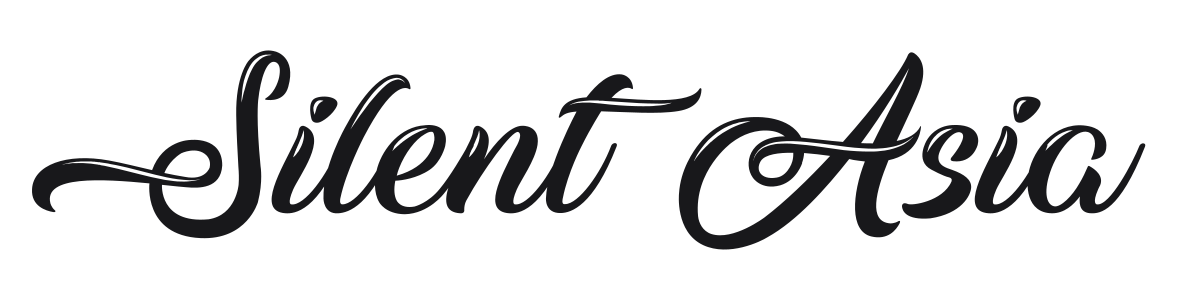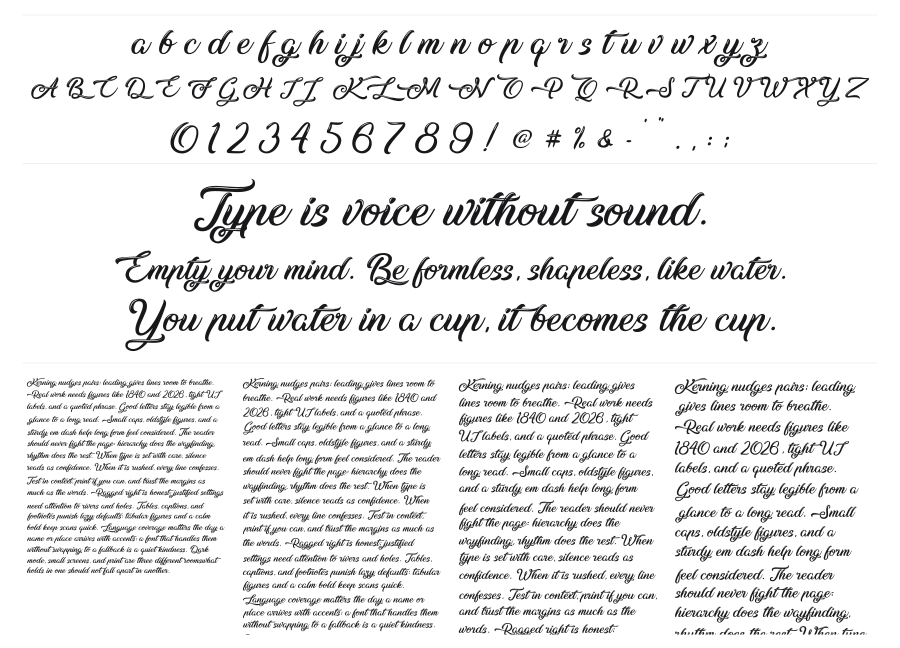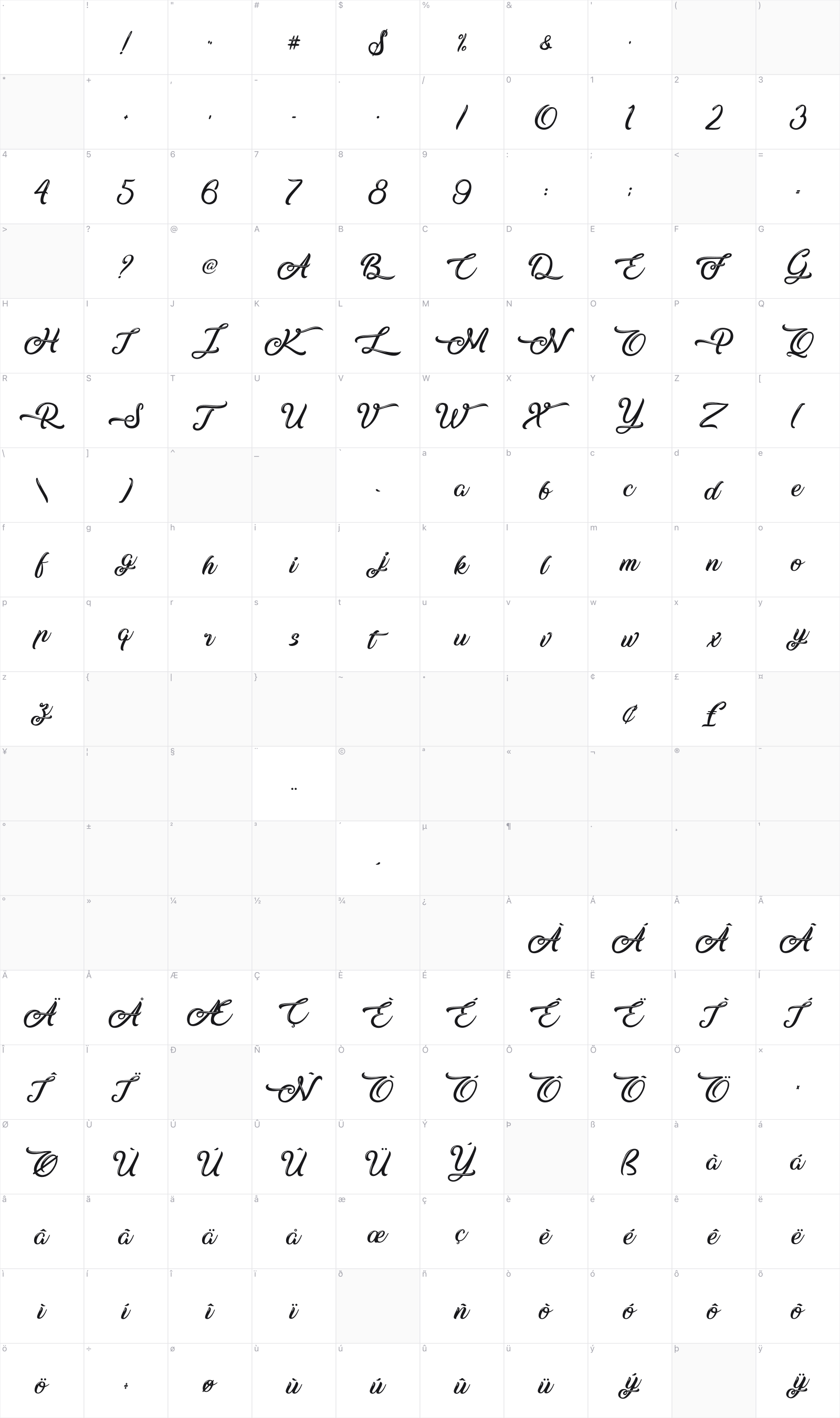
Silent Asia
Silent Asia is a bold brush script from Typhoon Type with rich ink-calligraphy character and strong stroke contrast. Looping swashes and flowing connections give the letters a natural, hand-lettered energy that works well at large sizes. It sits in familiar territory alongside contemporary wedding and lifestyle lettering, but carries enough weight and confidence to anchor a logo.